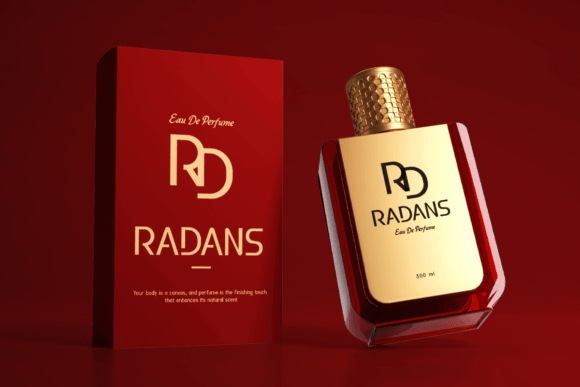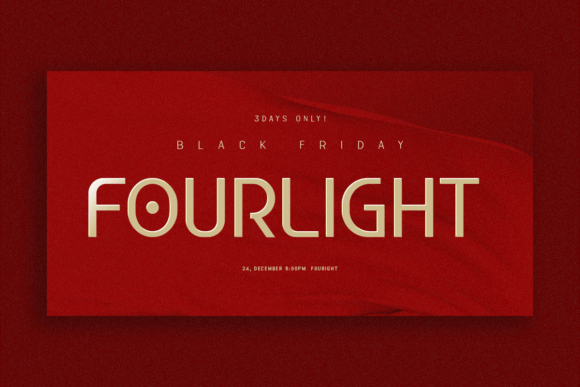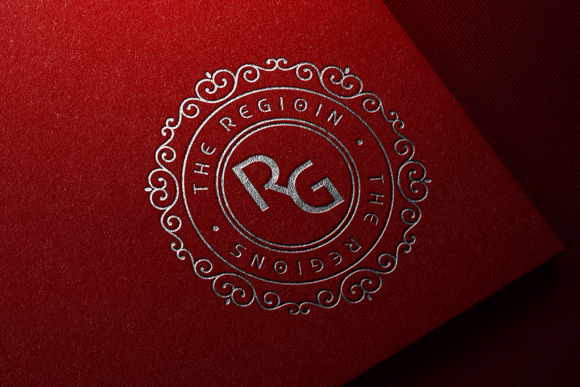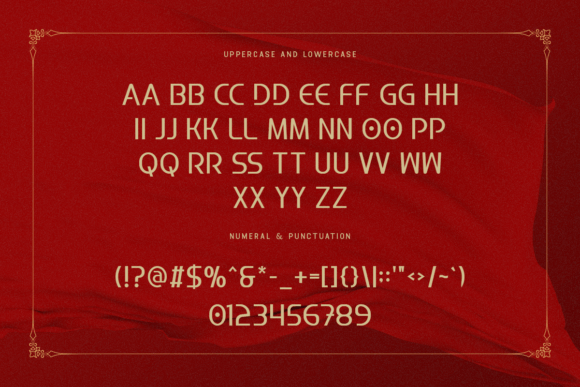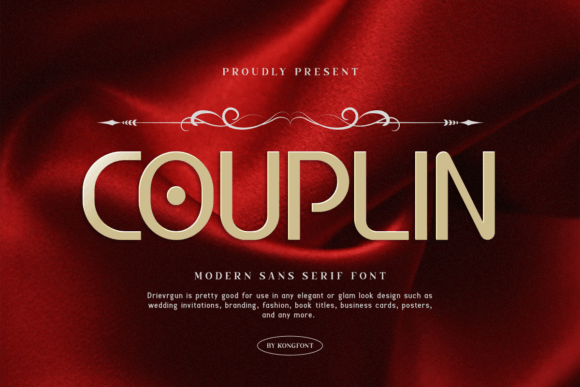
Couplin Font: Elevate Your Designs with a Sleek and Modern Typeface
In the world of typography, a well-chosen font can make all the difference in the success of a design project. For designers and crafters looking for a sleek and modern typeface that combines minimalism with versatility, Couplin Sans Serif Font is an excellent choice. With its clean lines and balanced letterforms, this font is perfect for a wide range of design projects, from branding and logo design to editorial layouts and web design.
The Characteristics of Couplin Sans Serif Font
Couplin Sans Serif Font is a contemporary and professional typeface that offers a unique blend of simplicity and sophistication. Its clean lines and balanced letterforms make it easy to read and understand, making it perfect for creating clear and effective communication in any medium. The font’s minimalist design ensures that it won’t overwhelm the content, allowing the message to take center stage.
One of the standout features of Couplin Sans Serif Font is its versatility. It can be used for a wide range of design projects, from corporate identities to creative projects, and even digital content. Whether you’re working on a logo design, brochure, or website, this font provides the perfect blend of style and functionality.
The Benefits of Using Couplin Sans Serif Font
So, what makes Couplin Sans Serif Font an excellent choice for designers and crafters? Here are just a few benefits of using this font:
- Improved Readability: The font’s clean lines and balanced letterforms make it easy to read and understand, even at small sizes.
- Versatility: Couplin Sans Serif Font can be used for a wide range of design projects, from branding and logo design to editorial layouts and web design.
- Professional Look: The font’s modern and sleek design gives any project a professional and contemporary look.
- Easy to Use: Couplin Sans Serif Font is PUA encoded, which means you can access all of the cute glyphs and swashes with ease!
Design Applications for Couplin Sans Serif Font
Couplin Sans Serif Font is a versatile typeface that can be used for a wide range of design projects. Here are just a few examples of how you can use this font:
- Branding and Logo Design: Use Couplin Sans Serif Font to create a professional and modern logo that reflects your brand’s values and personality.
- Editorial Layouts: The font’s clean lines and balanced letterforms make it perfect for use in editorial layouts, such as magazines, newspapers, and books.
- Web Design: Couplin Sans Serif Font is optimized for use on the web, making it perfect for use in website design, blogs, and digital content.
- Corporate Identity: Use this font to create a professional and cohesive corporate identity that reflects your company’s values and mission.
Tips for Using Couplin Sans Serif Font
Here are just a few tips for using Couplin Sans Serif Font effectively:
- Use it with Confidence: Couplin Sans Serif Font is a versatile typeface that can be used with confidence in a wide range of design projects.
- Experiment with Different Sizes: The font’s clean lines and balanced letterforms make it easy to read and understand, even at small sizes.
- Pair it with Other Fonts: Couplin Sans Serif Font can be paired with other fonts to create a unique and visually appealing design.
In conclusion, Couplin Sans Serif Font is a sleek and modern typeface that combines minimalism with versatility. Its clean lines and balanced letterforms make it an excellent choice for a wide range of design projects, from branding and logo design to editorial layouts and web design. With its professional and contemporary look, this font is perfect for creating clear and effective communication in any medium. Whether you’re working on a corporate identity, a creative project, or digital content, Couplin Sans Serif Font provides the perfect blend of simplicity and sophistication to elevate your designs.